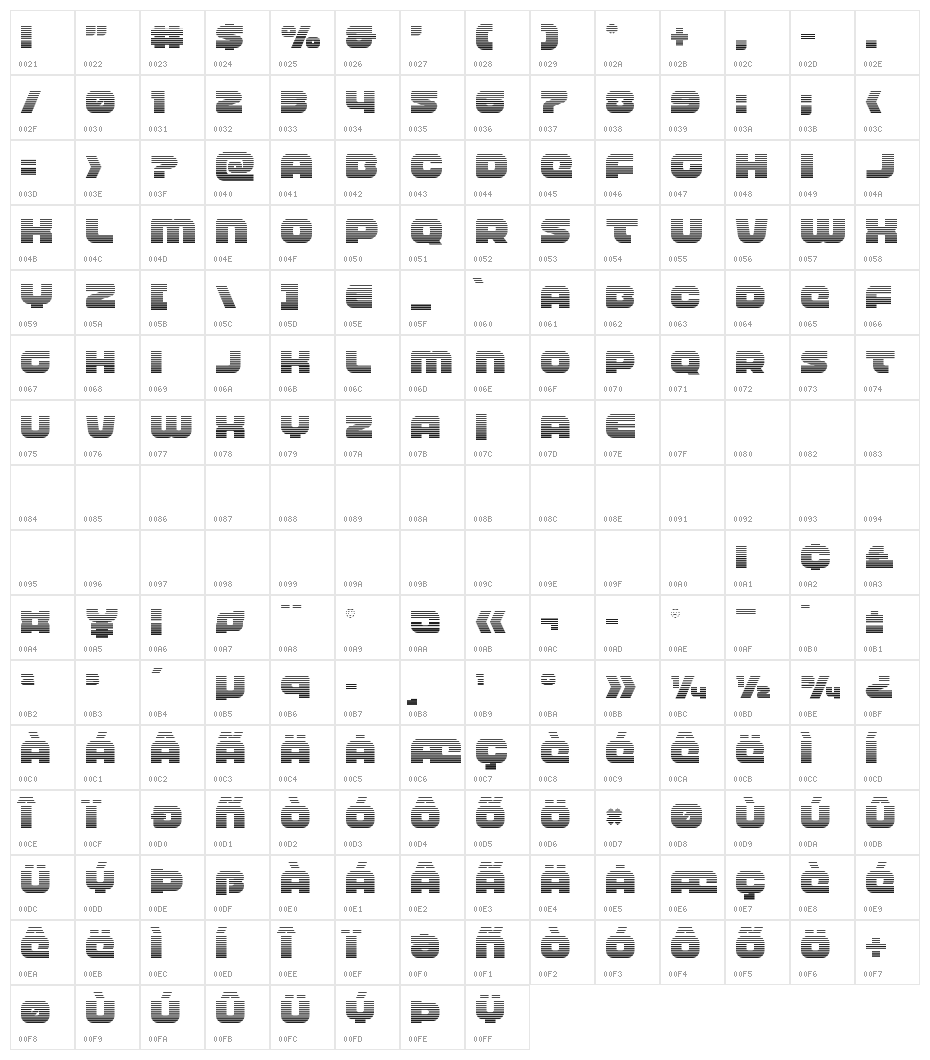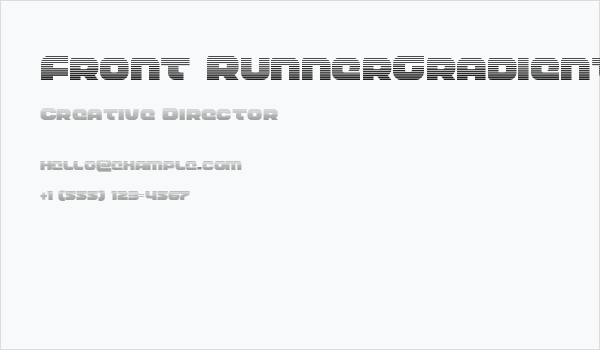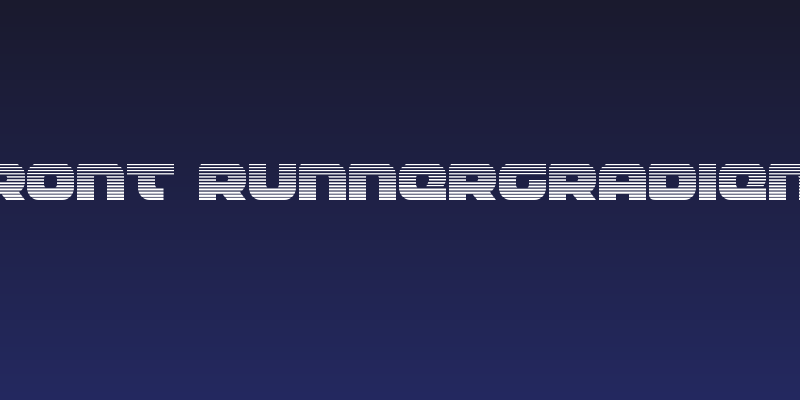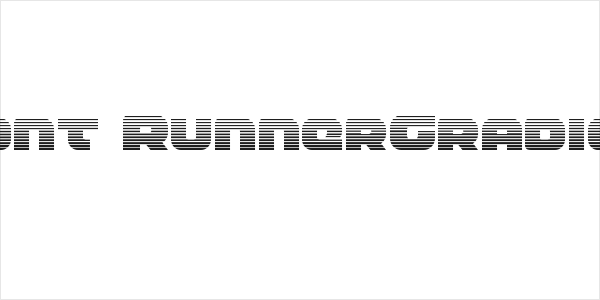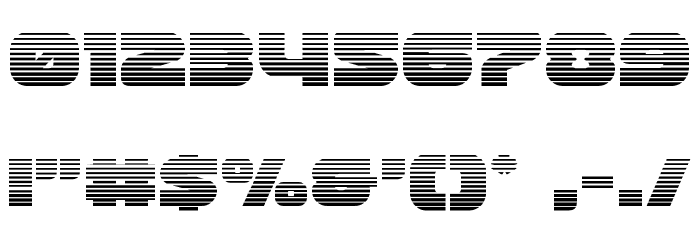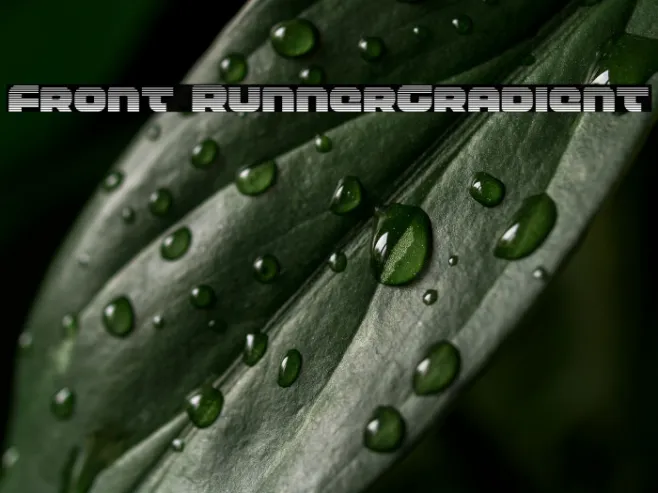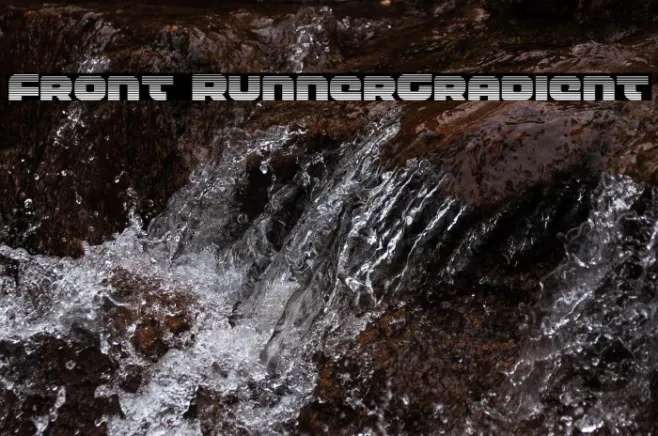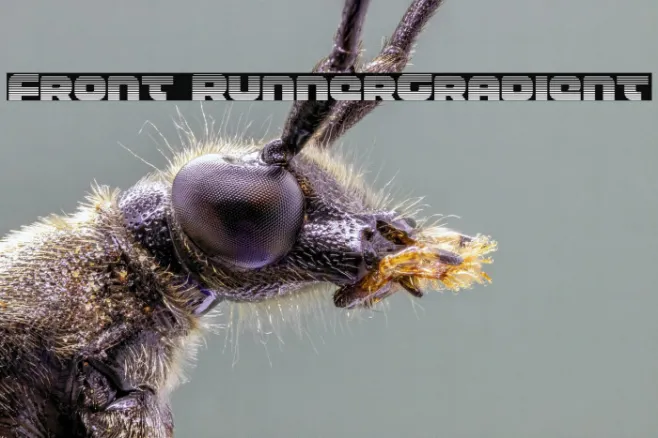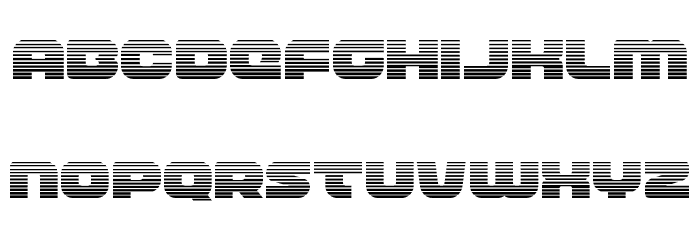
Front RunnerGradient Font
Front RunnerGradient Description
This font features a bold, futuristic design with a distinct horizontal line pattern running through each character, creating a gradient-like effect. The uppercase letters are blocky and geometric, giving a sense of strength and modernity. The numbers and special characters maintain this consistent style, ensuring a cohesive look across all text. The unique line pattern adds a dynamic visual interest, making it stand out in any design. Its boldness and decorative elements make it ideal for attention-grabbing headlines or logos.
| Proposed Projects | Ideal for futuristic branding, tech-related projects, sci-fi book covers, and dynamic poster designs. |